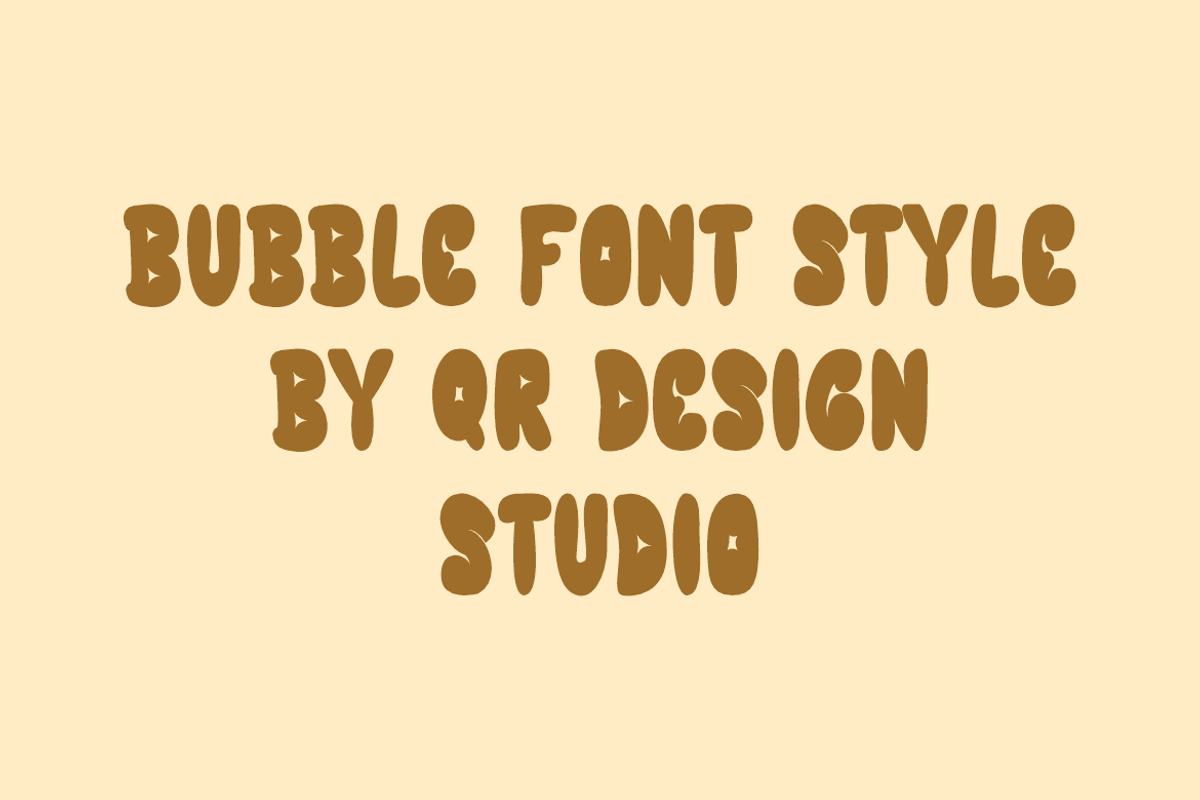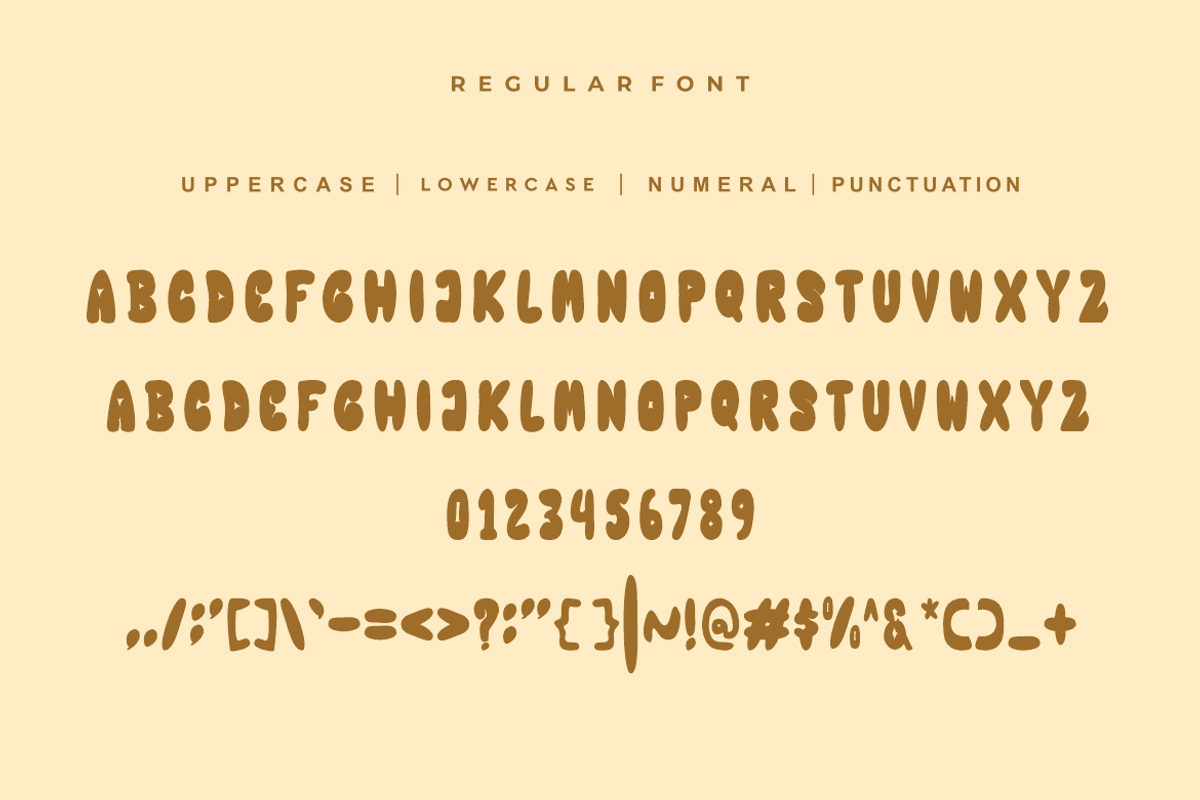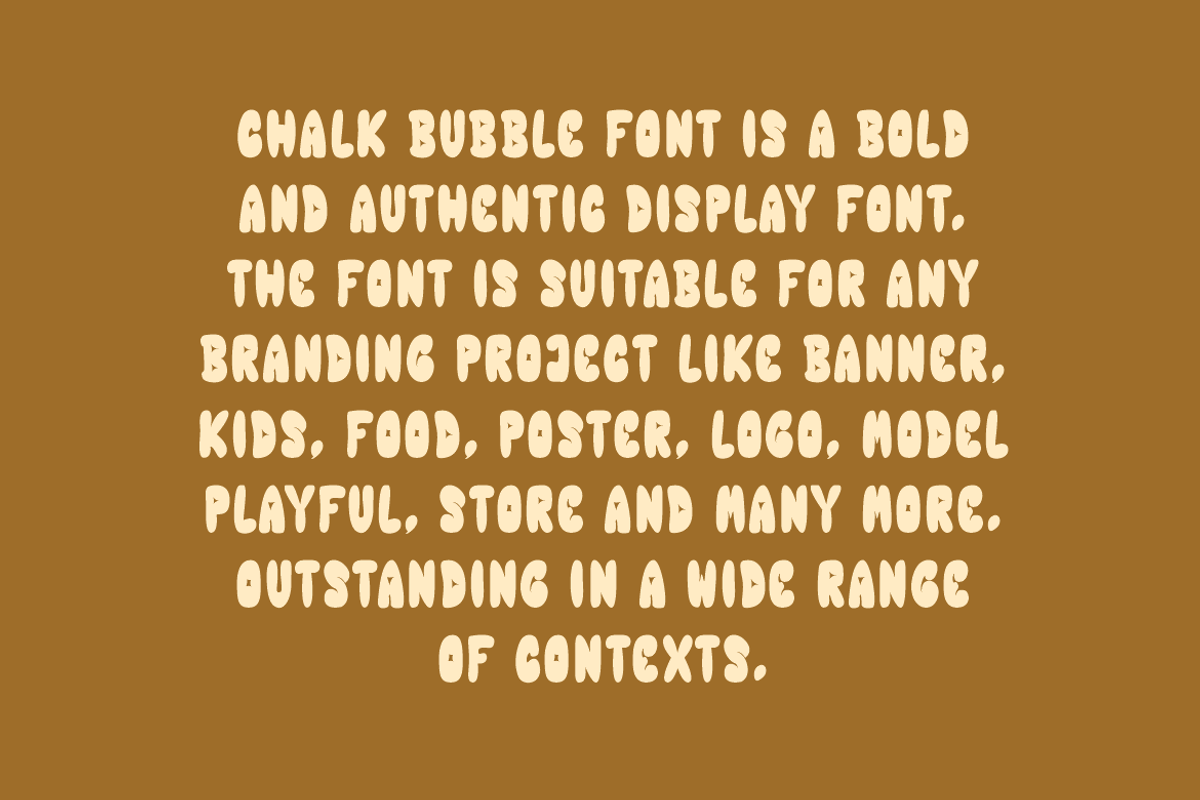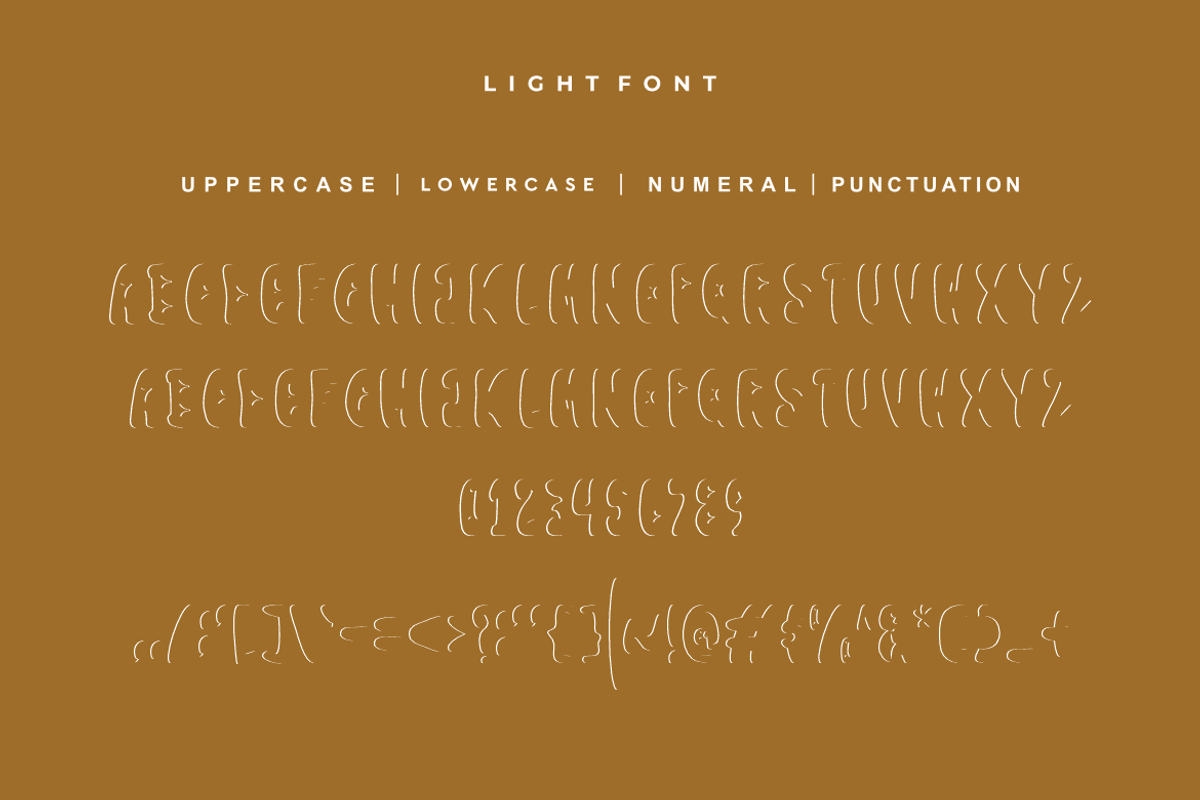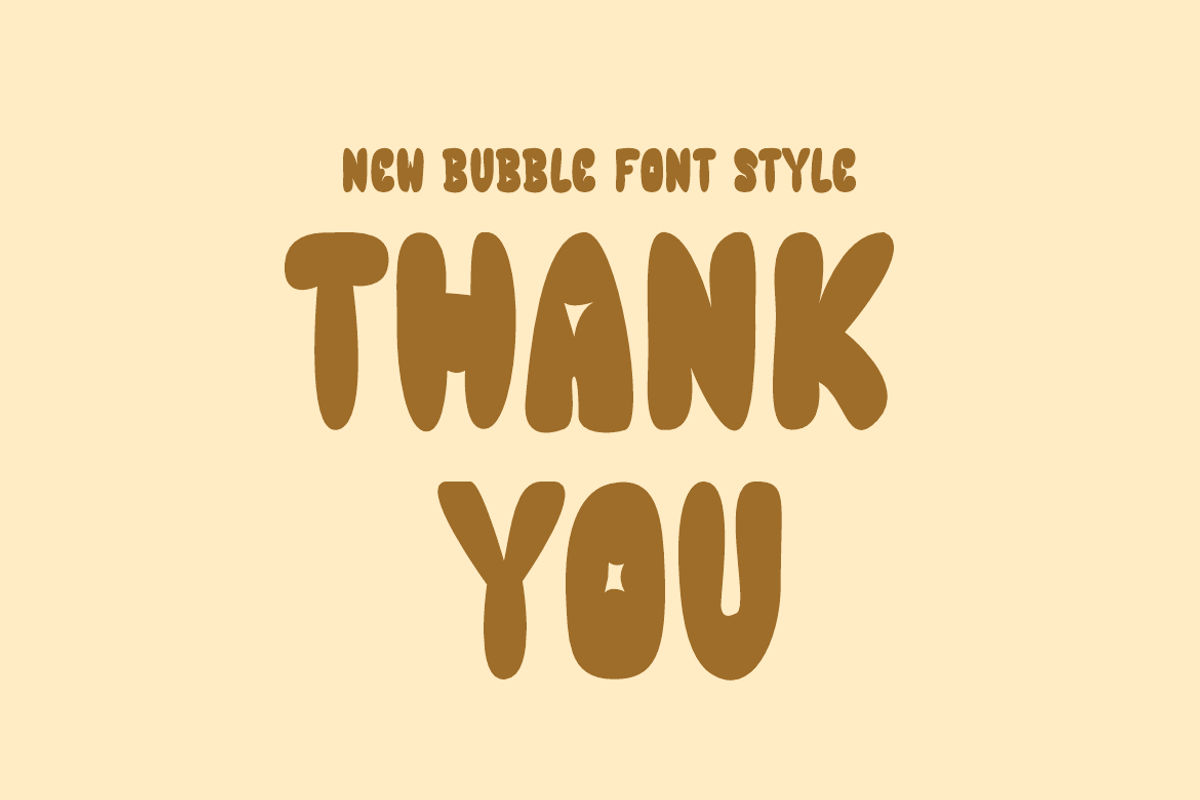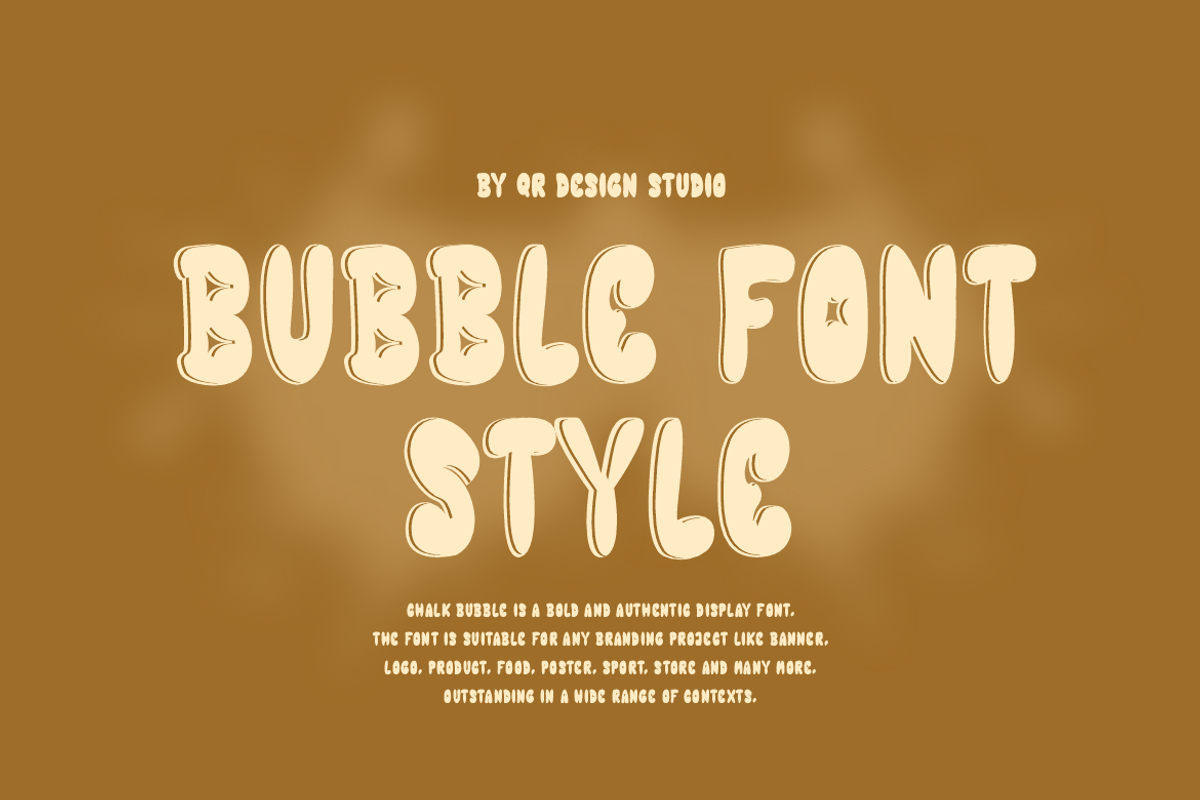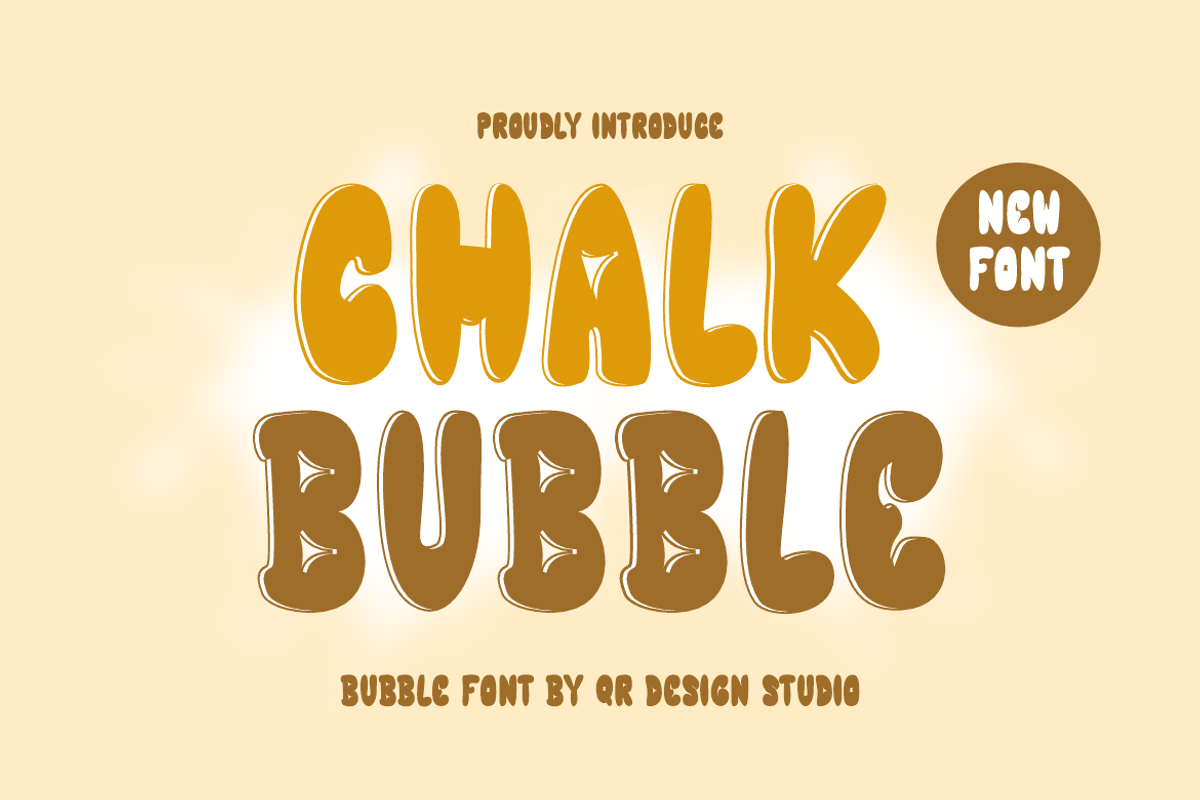
Chalk Bubble Font
Chalk Bubble Font is a bold and authentic display font. The font is suitable for any branding project like food, drink, kids, poster, playful, logo, sport, and many more. Outstanding in a wide range of contexts.